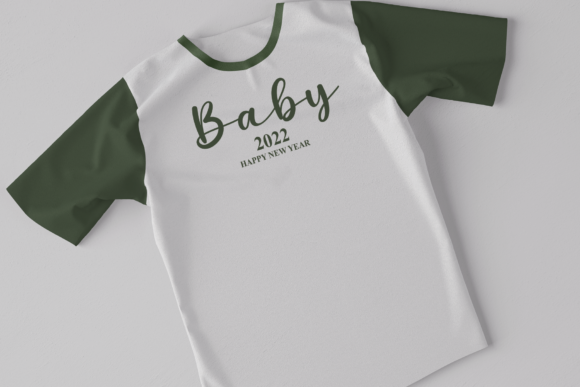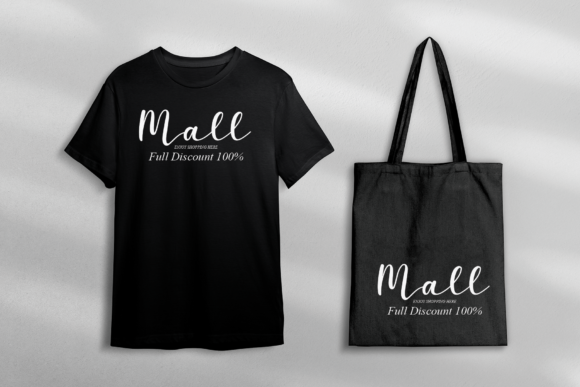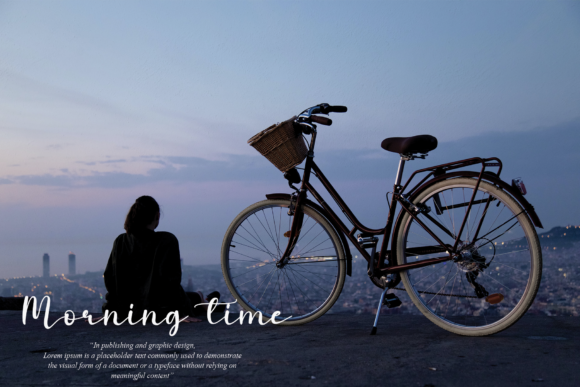
Valentine Vintage Font
About Valentine Vintage Font
Valentine Vintage is a beautiful and flowing script font. It maintains its classy calligraphic influences while feeling contemporary and fresh. Fall in love with it and bring your projects to the highest levels!